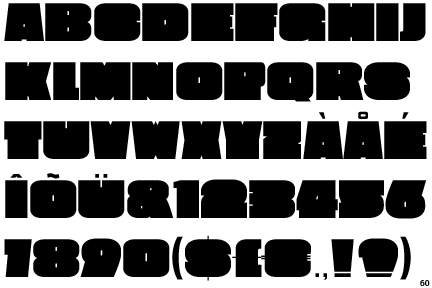
New font
I'm a student doing my first font. It's for a project in school. Looking for any kind of feedback you can give I also don't have name for it yet.
I'm a student too and I'll try to give you my honest and humble opinion.
The first thing that came into my mind (and I know it's really odd) was the Mettallica lettering, specially K, N, R, Z, Y, Z... Don't ask me why but it reminds me, with a bold modern look.
I think it's still inconsistent. You should work it better specially on details, and structure, like, why does the B doesn't have counterform? Why the Q's and O's counterform is smaller than C's and G's? And there's more, but I'm afraid to sound annoying and too boring.
I'm working on a font too, that it's kinda "similar" to this of yours.
Plus you should make some test prints with various sizes and with real phrases or words, to get a notion of how it works on real, specific applications, that you should decide to. I assume it's meant to be a poster application?..
/R/ I think it could take a hint from /B/.
/F/ has an overbite problem.
/J/ Does it need a flat bottom? The /U/ isn't flat.
/M/ and /W/ both seem naked without those extra notches.
The counter could be more uniform. No?
/4/ seems a tad wide, same for /5/ and /2/.
Could the /1/ have a notch or something. Hmm. Maybe?
Why no counters on /4/, /6/, /8/, /9/, and /0/?
This is gonna be for a poster, business card, letterhead, website and for my own logo.
Already did some print tests, works fine as a logo on a business card, the counter on the /O/ was almost gone so it makes sense making it bigger.
Gonna keep the counters out of the numbers for now, I kinda like it like that and it helps to seperate the zero and /O/. The counters look fine on /4/, /6/, /9/ and /0/ but not on the /8/, to me it makes more sense to leave them all out.
I noticed the overbite issue on /F/ but I think it's a cool /F/, tried some variations but nothing decent came out of it.
Made some changes trying to make it more consistent.
Made changes to /C/, /B/, /E/, /G/, /J/, /M/, /O/, /Q/, /W/, /3/ and /8/.
Right now when I'm looking at the letter the /B/ looks odd to me.
I would like to see it in action, post some text samples please.
Put the it true Type Tool today so I could do some text samples.
A friend suggested the name Fatman :) Gonna go with that for now.
I guess you could use a "cut" like /Y or /H on /U.
R seems strange to me.
M is better :)
F should be similar to E instead of T.
The rest is great, I like the negative space :)
Ah, and why the upper counter of B is smaller in thickness? It should be equal in my opinion.
Regarding the name is such a difficult task since there's a loooooooooooooot of fonts over the internet. Since you're Finnish (?) I suggest that you name it with a Finnish name.
Some more updates.
The R was thinner then all the other characters for some reason so I fixed that. I like my F so I'm not gonna change it yet. Also added a cut on the U. The B looks wierd when the upper counter is the same thickness.
Decided to go with the name Fatman. Added a extra character ( a bomb). Fatman was the name of one of the nuclear bombs that America dropped on Japan in WWII. Also made a poster for the final assesment in my type design class.
Still gonna work some more on it and make it into a proper font with more special characters.
Hej Peter,
Your font is coming nicely along. Nice to see the notch in the letter U. For what it's worth, the J strikes me as much too skinny; L is a bit small, too. I'd also encourage you to consider balancing the R a little more (smaller bowl, bigger leg) and adding notches or something to the F. The word "FATMAN" in your graphics above is more or less illegible at that size. Other than that, nice work.
In case it hasn't already come to your attention, there are already several fonts named Fatman out there:
I like the general look to this typeface, but I think the half counters of the 3 don't fit with the other numbers.
i think for what it is, it looks really good. my only qualm is that it looks really similar to every other font designed in 2009. but it's obviously a play off of what's currently going on in hip type design, and as part of that milieu, i really like it. the line going into the c and g, and ? all feel a tiny tiny bit too thick. that's it though. nice.